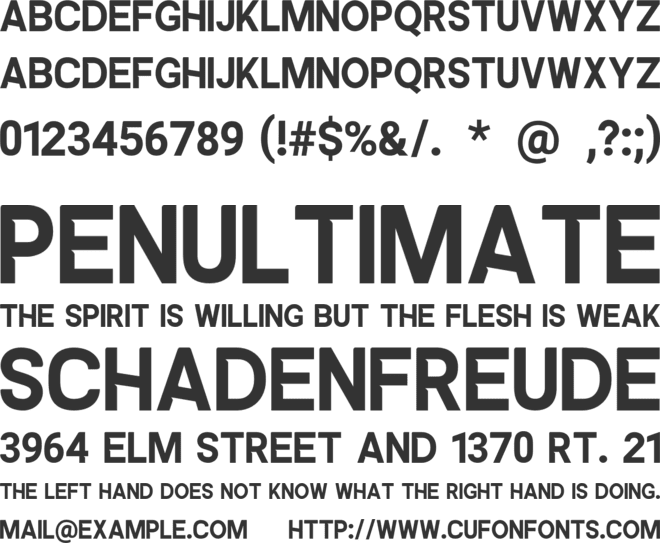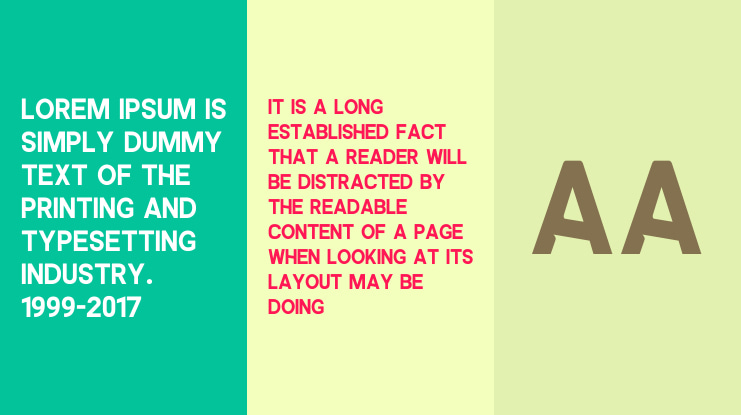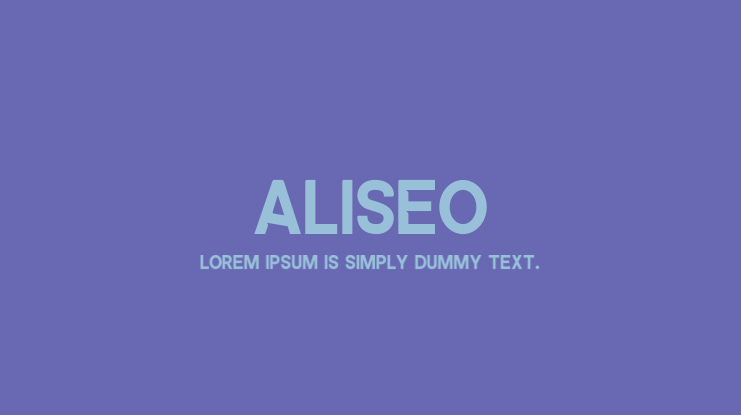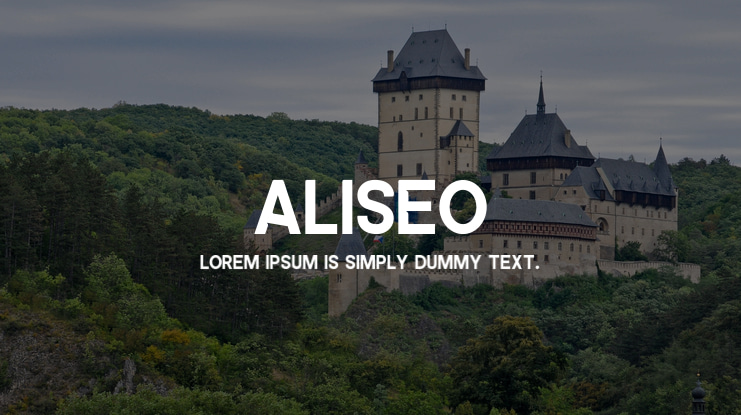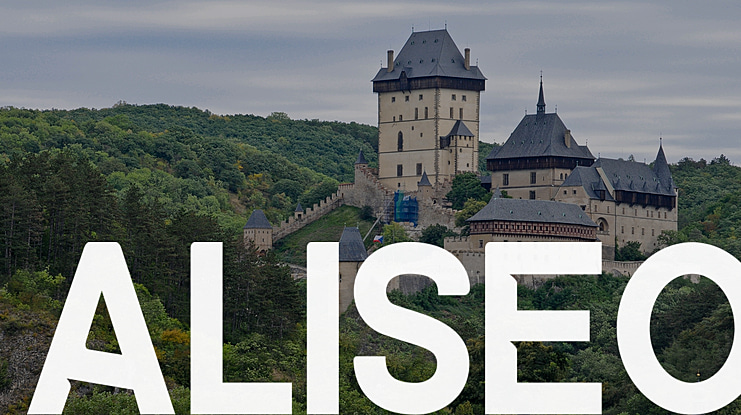
ALISEO Font
Introducing Aliseo - Sans Serif Font
Aliseo is a strong and clean sans serif font. It's a versatile font family designed for strong, classic branding. Aliseo works great in any branding, logos, magazines, videos, product packaging, website headers, clothing designs and much more.